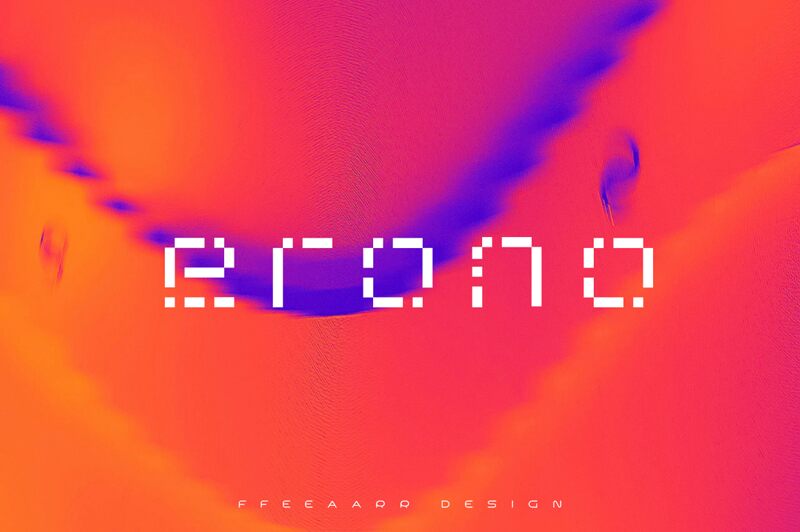
FF Path font by ffeeaarr is a techno font inspired by a futuristic and minimalist design. The geometric and pixelated structure gives it a distinctive, high-tech appearance that captures the essence of contemporary digital aesthetics. This creative free font stands out through its structured, mechanical appearance.
Its unique and fresh look is perfect for digital content and high-tech related projects that need both readability and originality. Use it for logos, pamphlets, magazines, brochures, or it can be presented on websites, as well as UX and UI designs. Graphics developers can include it in their website icon designs and in online games, or they can simply use it in posters, book covers, and other printed designs.